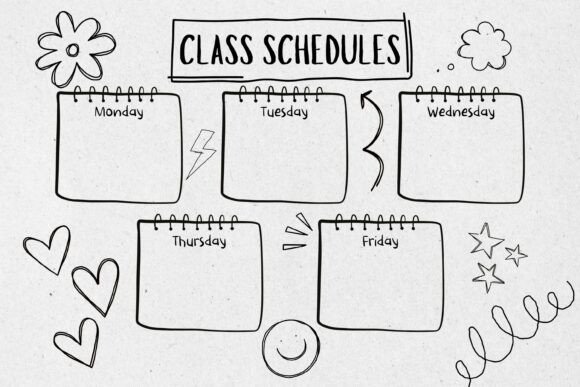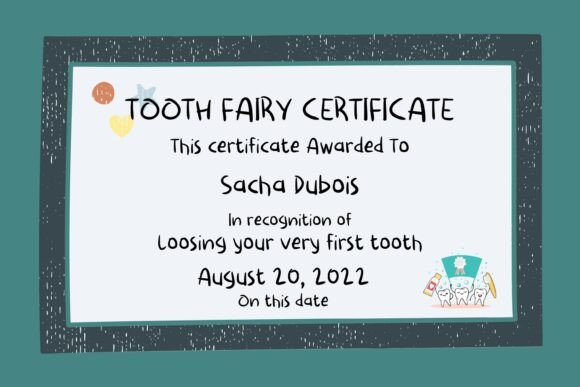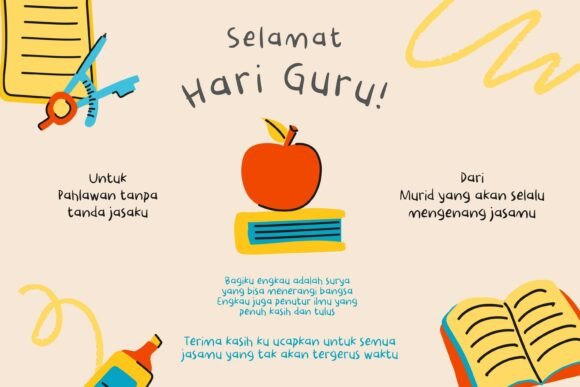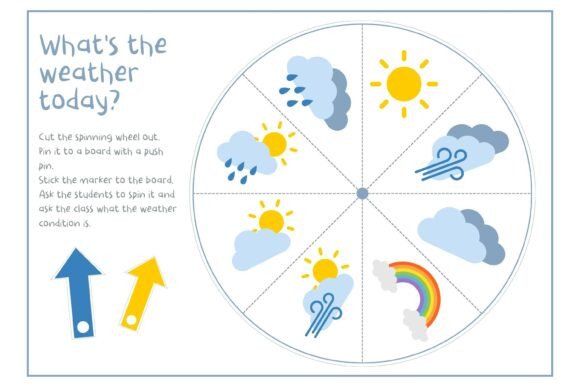
Introduction to Kids Spidol Font
Experience the distinct charm of Kids Spidol font, the perfect blend of quirky and sophisticated.
With its handcrafted style, resembling a sharp scribe, this font promises to add character and a unique touch to your various projects Whether itโs enhancing the look of certificates, sprucing up school assignments, or adding a personalized touch to greeting cards, Kids Spidol font is an unsuspecting hero that transforms the mundane into something extraordinary.
Key Features of Kids Spidol Font
Why Choose Kids Spidol Font?
Kids Spidol Font offers exceptional quality and versatility, making it a valuable addition to your design toolkit. Whether you’re creating for personal projects or commercial use, Kids Spidol Font delivers professional results.